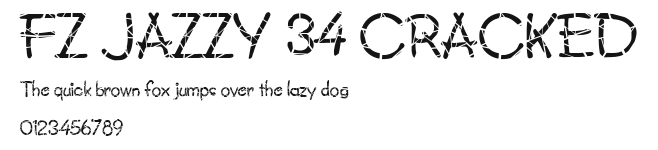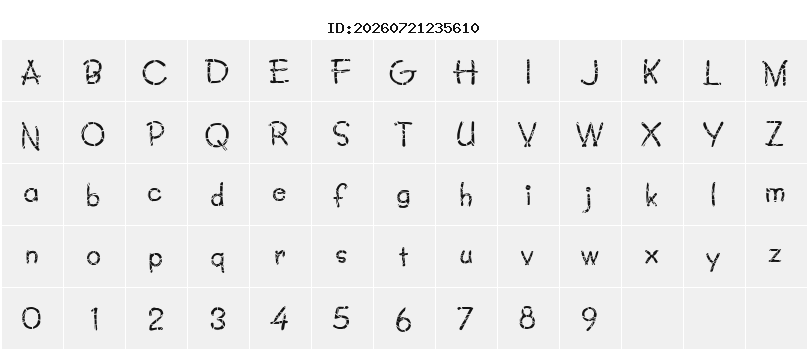
• Font Name: FZ JAZZY 34 CRACKED
About FZ JAZZY 34 CRACKED.ttf
FZ JAZZY 34 CRACKED.ttf is a modern, elegant sans-serif font designed for ultimate readability and visual harmony. Perfect for branding, headlines, web design, and print materials.